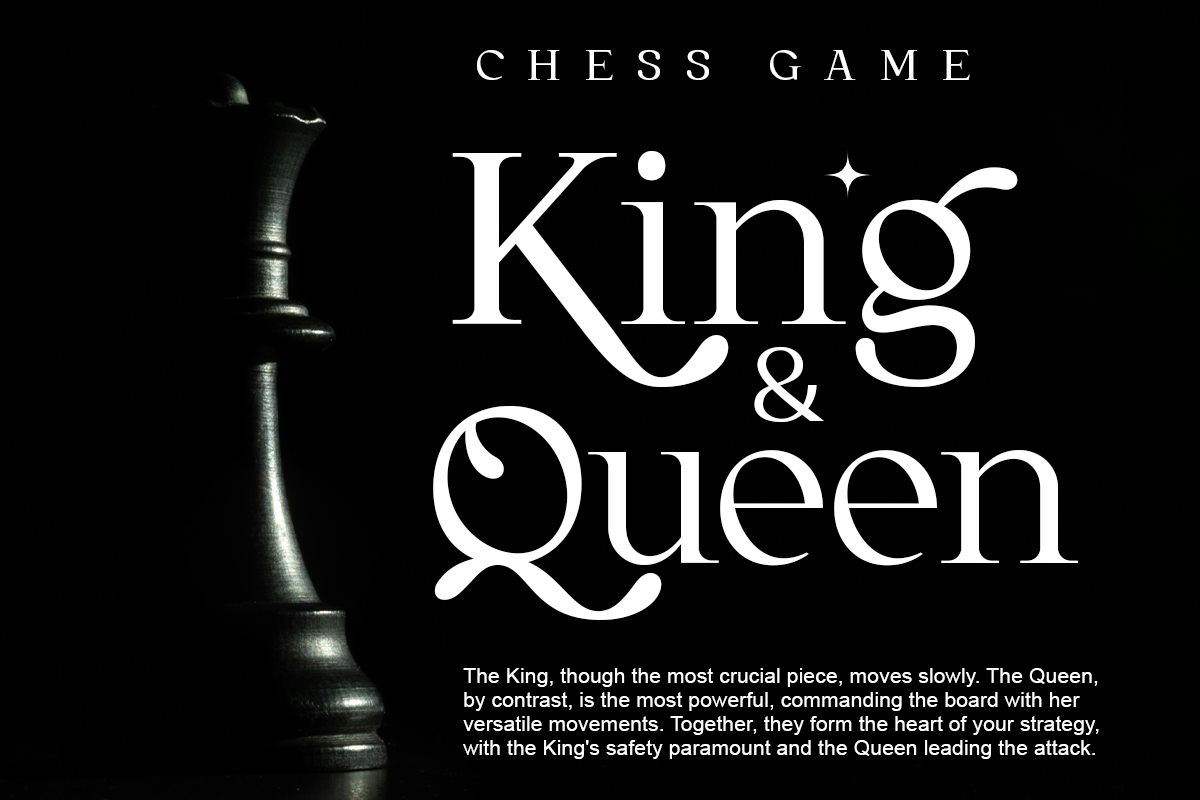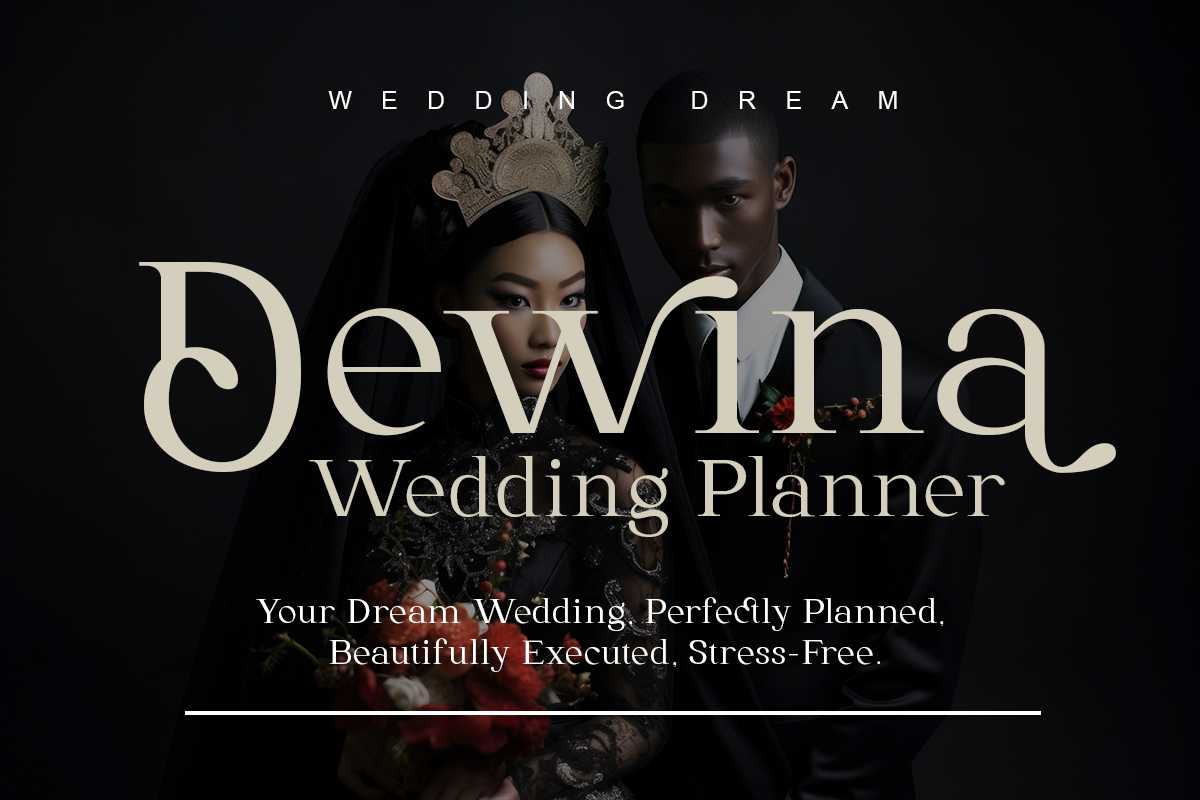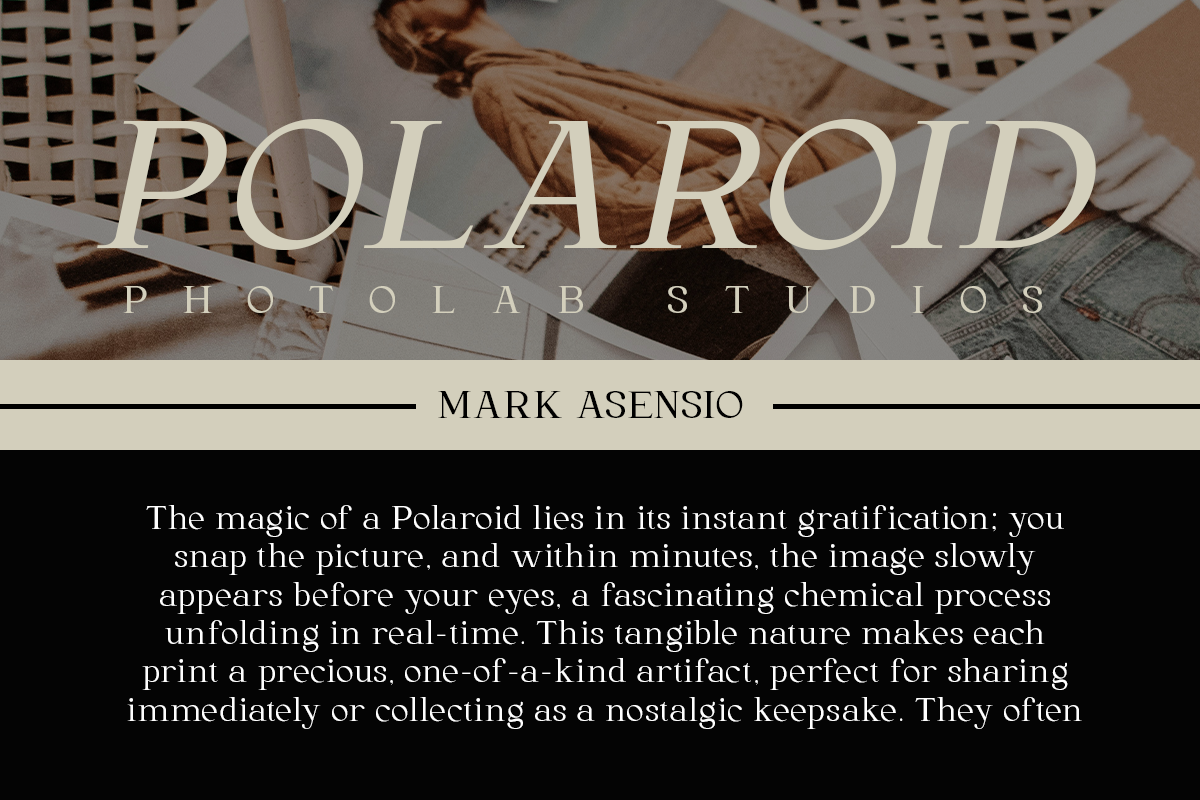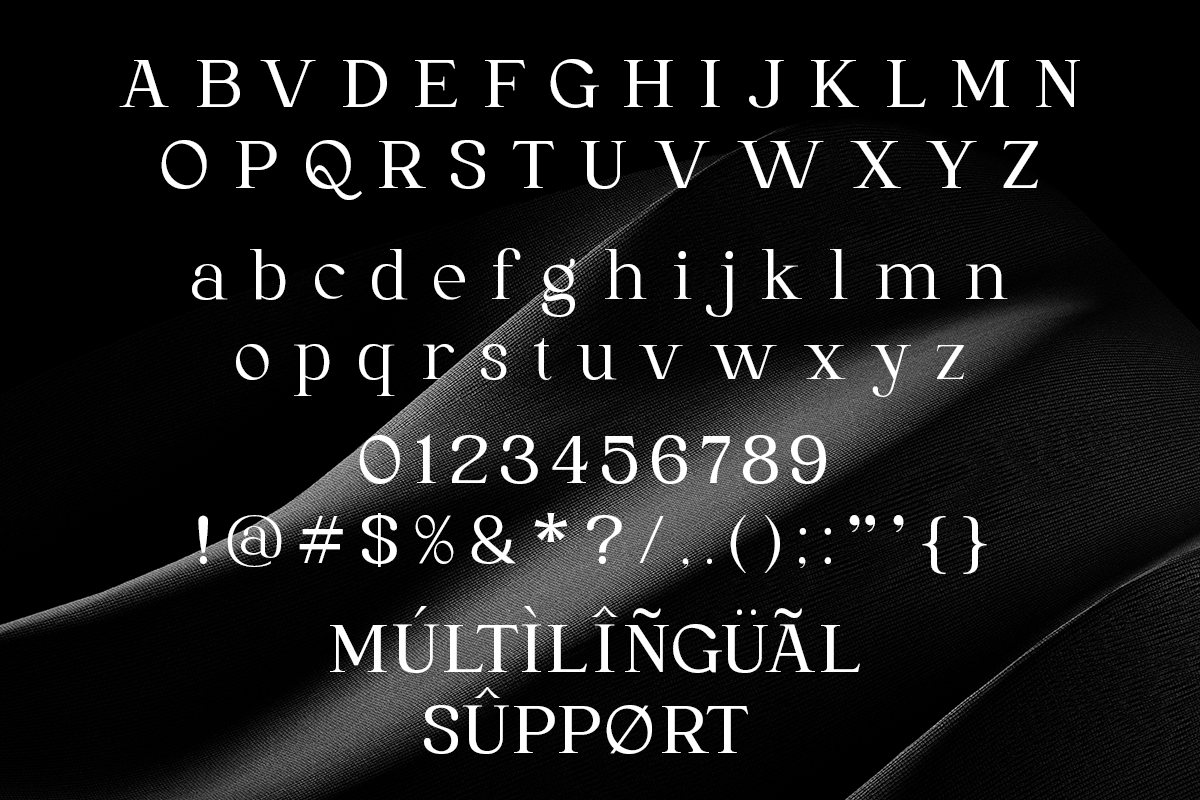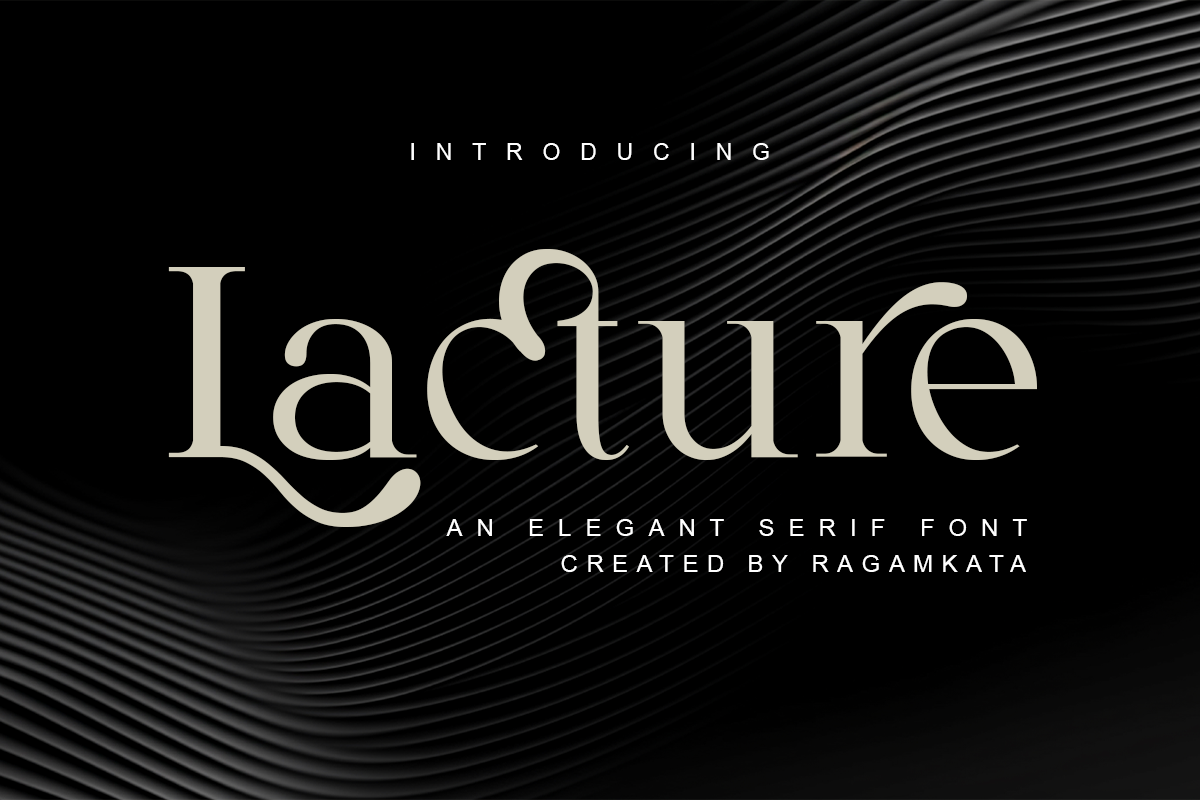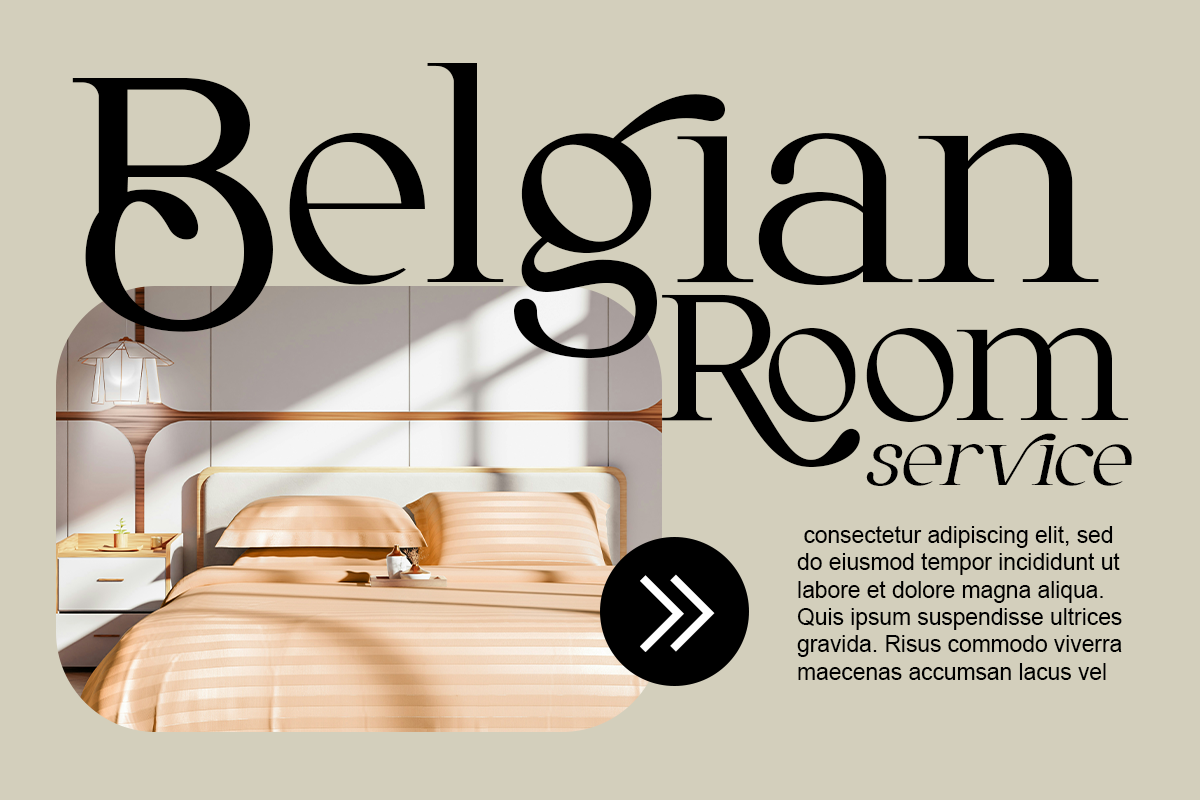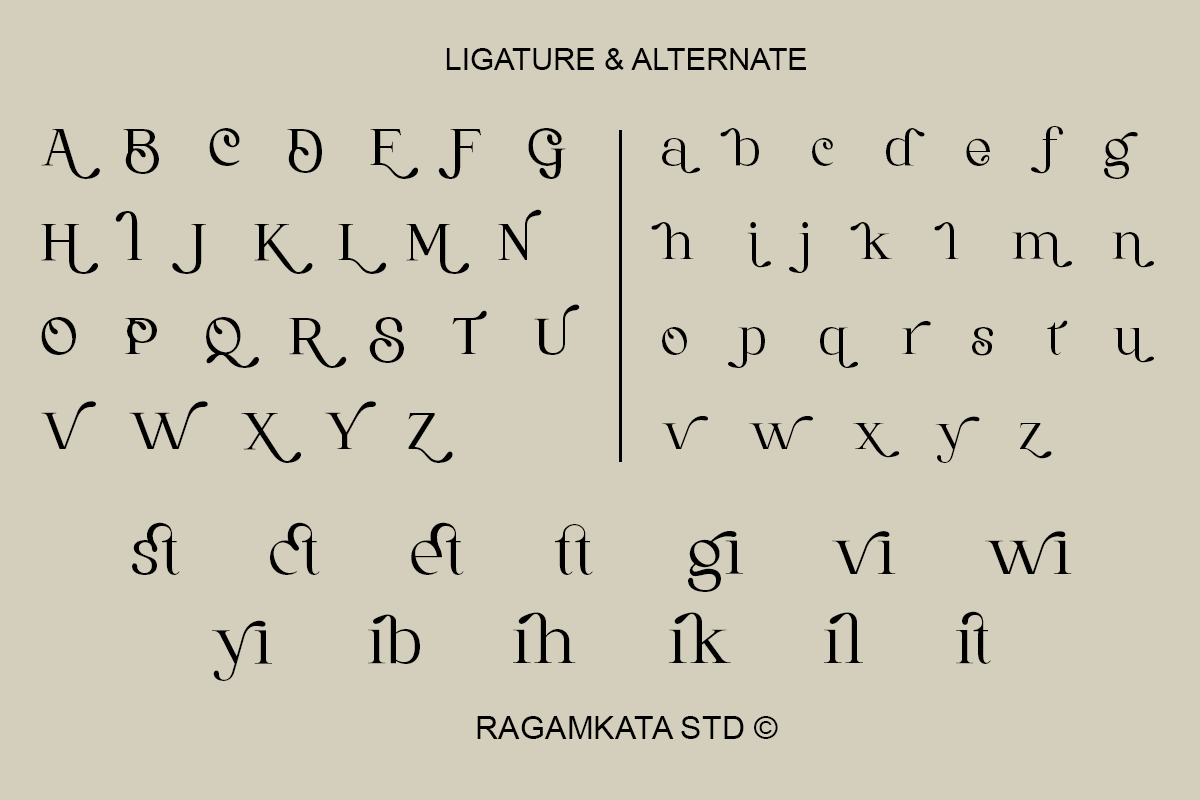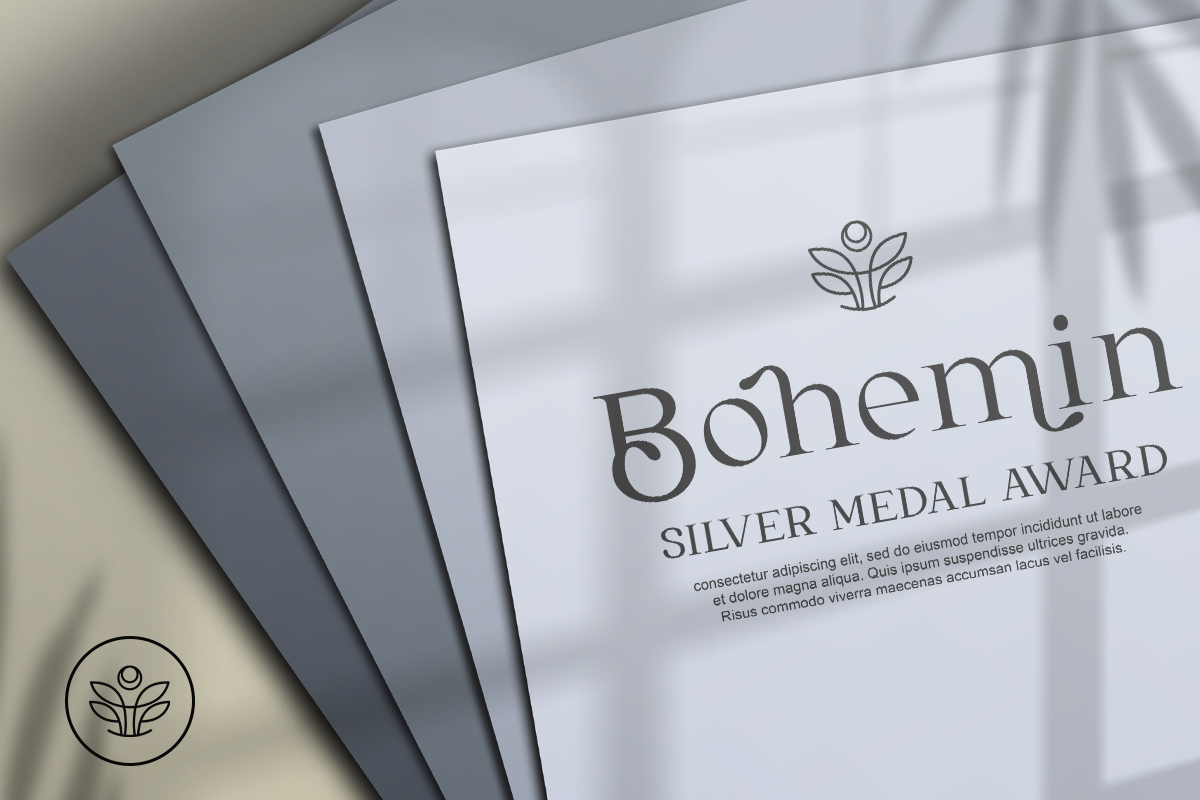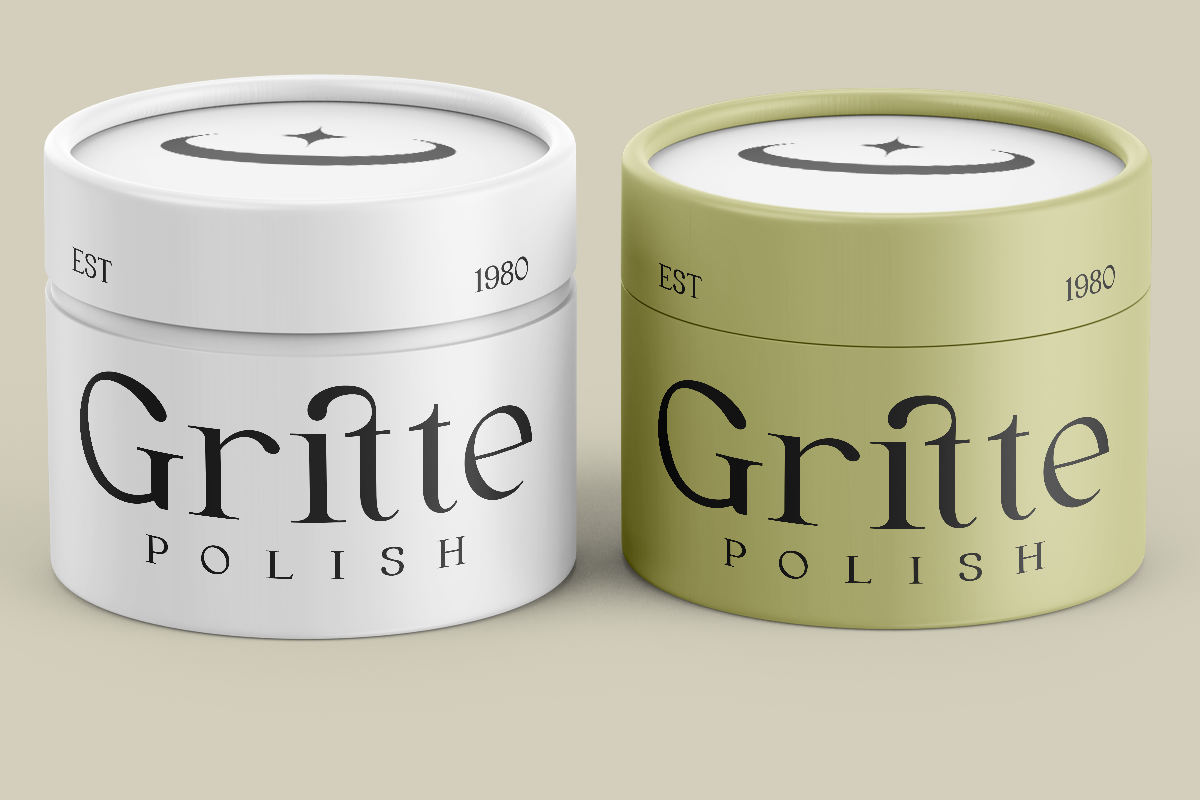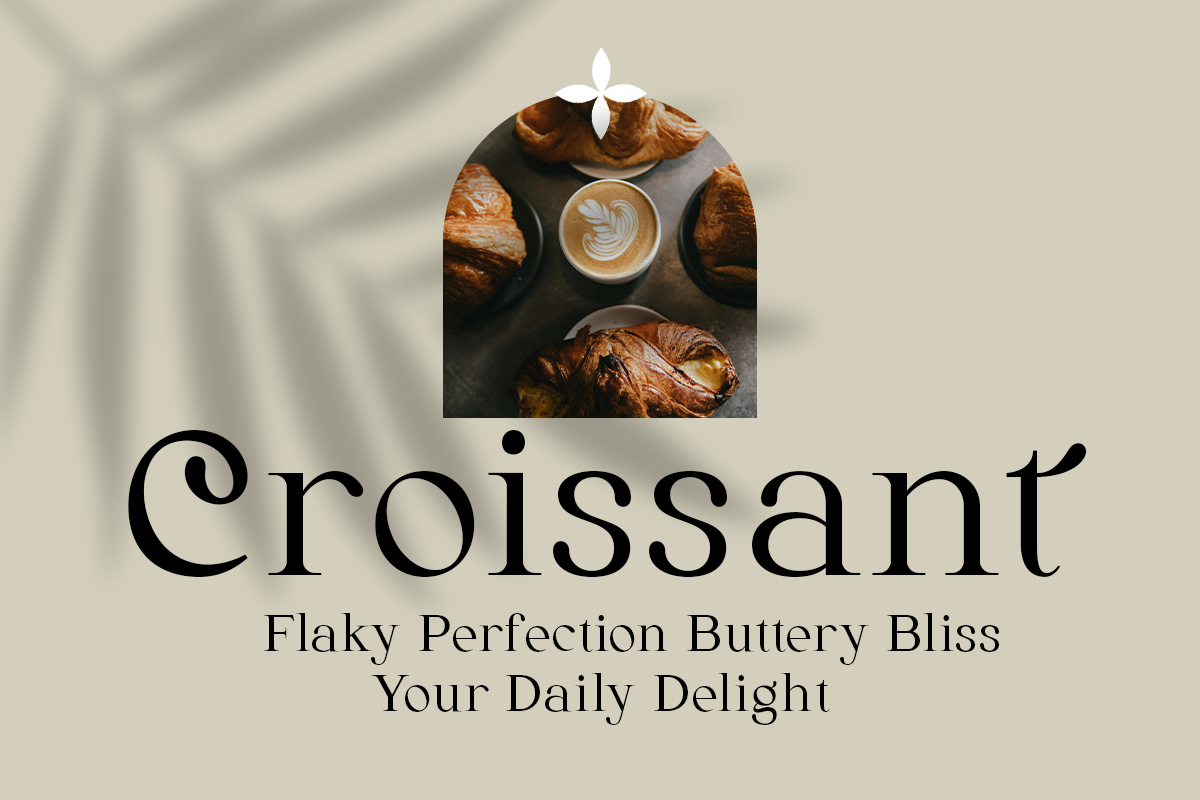
Lacture - An Legant Serif Font
Lacture - An Elegant Serif Font
Introducing Lacture, a refined and sophisticated serif font designed to elevate your creative projects. With its graceful curves, high contrast strokes, and unique ligature. Perfectly suited for editorial design, branding, luxury packaging, fashion headlines, invitations, and more, Lature brings a sense of prestige and timeless beauty to any layout. Its balanced proportions and smooth letterforms ensure excellent readability while maintaining a distinctive personality.
- Alternates Character
- Ligatures Character